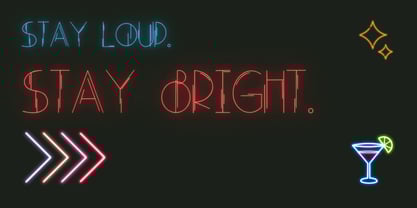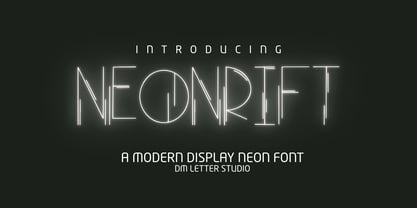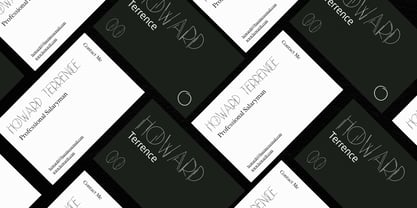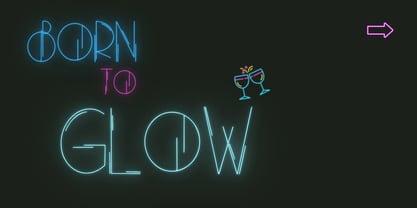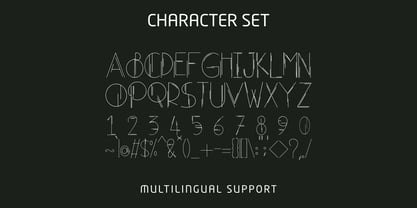
Neonrift
The Neonrift Font Family was designed by Dimas Prasetyo and published by DM Studio. Neonrift contains 1 styles. More about this family
Meet Neonrift, the Display Font Neonrift is a bold display font with a sharp, electric vibe made for designs that need instant attention. It brings a neon sign energy with strong shapes and a confident presence, so your headlines feel modern and high-impact. Because the letterforms stay balanced and open, Neonrift remains readable on posters, thumbnails, and banners, even at smaller sizes. Use it for nightlife branding, music posters, gaming headers, tech promos, product launches, and social graphics. As a result, your designs look futuristic and ready for the spotlight. Why Neonrift sells First, it installs fast and works smoothly in Canva, Photoshop, and Illustrator. Next, the bold shapes print cleanly for posters, stickers, packaging, and merch. Then layouts build quickly because Neonrift already delivers that “neon” attitude without complex effects. Moreover, it pairs perfectly with a clean sans or a condensed font for supporting text, so everything stays readable. Therefore, you can create consistent promo sets and campaign visuals in minutes. Fast layouts with the Neonrift font Start with a short headline in Neonrift and keep it punchy. After that, add details in a simple supporting font for dates, pricing, or subtitles. Because Neonrift looks best with contrast, place it on dark backgrounds or simple gradients. In addition, try adding a glow, outer stroke, or soft shadow to push the neon feel even further. Finally, save palette pairs like electric cyan & black, magenta & deep purple, lime & charcoal, or white & midnight blue to repeat across your designs. Creative uses and quick wins Music posters, club flyers, and event banners Gaming headers, stream overlays, and esports graphics Tech promos, app launch creatives, and product ads YouTube thumbnails, reels covers, and bold quote posts What you get Uppercase, lowercase, numbers, punctuation Bold display letterforms built for headlines Multilingual Latin support (where included in your build) Curves tuned for clean print and high-res exports Design tips for Neonrift Keep phrases short so the style hits harder. Also, increase tracking slightly on big titles for a cleaner neon sign look. For glow effects, duplicate the text layer, blur the bottom layer, and lower opacity. For print, export at 300 DPI, and for web export at 2× size so edges stay crisp. Finally, pair Neonrift with minimal shapes and plenty of space so the neon vibe stays strong.